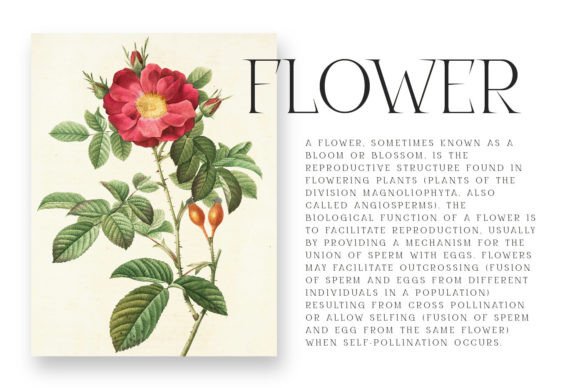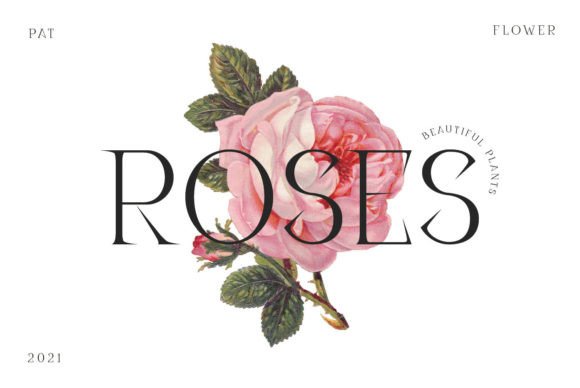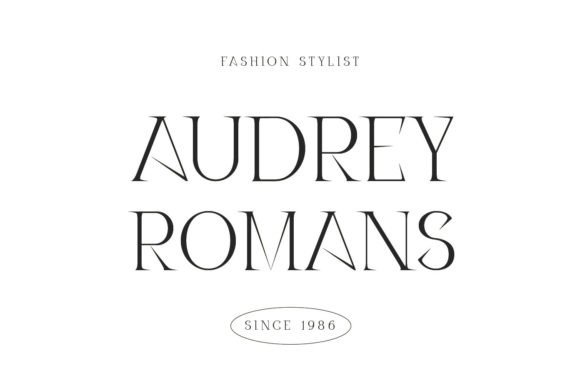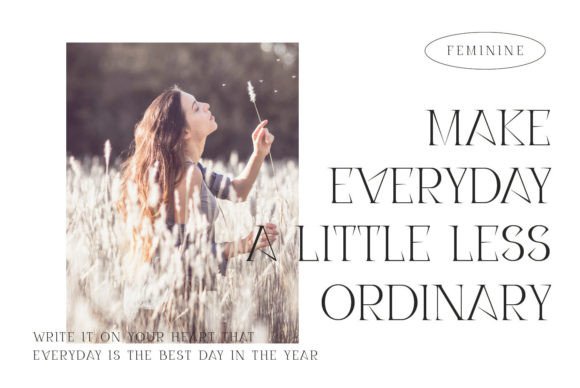
Disenativo: A Slim and Solemn Slab Serif Font
Disenativo is a slim and solemn slab serif font, capable of adding luxurious vibes to any design! Use this gorgeous typeface to enhance the beauty of your wedding invitations, banners, personal branding, or business cards.
Key Features of Disenativo
- Slim Design: Offers an elegant and refined look suitable for various applications.
- Slab Serif Structure: Features distinctive serifs that add character and sophistication.
- Solemn Appearance: Brings a sense of dignity and formality to designs.
- Luxurious Vibe: Adds an upscale feel to any project it’s used in.
Ideal Uses for Disenativo
Disenativo’s unique characteristics make it particularly well-suited for:
- Elegant wedding invitations
- Sophisticated banner designs
- Upscale personal branding
- Luxurious business cards
- High-end product packaging
- Formal event invitations
- Elegant website headers
When incorporating Disenativo into your designs, consider these tips:
- Use for headlines or short blocks of text to showcase its slim and solemn style.
- Experiment with different sizes to highlight the font’s luxurious features.
- Consider pairing with simpler sans-serif fonts for body text to create contrast.
- Utilize its elegant appearance to create designs that evoke sophistication and luxury.
Disenativo is an excellent choice for designers looking to add a slim and solemn slab serif font to their typographic toolkit. Its ability to bring luxurious vibes to various design projects makes it stand out in the world of typography. Whether you’re working on wedding invitations, creating banners, or developing personal branding materials, Disenativo offers the perfect blend of elegance and formality.
Furthermore, Disenativo’s unique design allows it to shine in various contexts where a touch of luxury is desired. From business cards to high-end product packaging, this font can elevate your projects with its distinctive style. Its slim yet readable appearance works particularly well in designs that aim to convey a sense of sophistication and exclusivity.
In conclusion, Disenativo is a font that truly captures the essence of elegance and solemnity in modern typography. Its versatility across different applications showcases its adaptability to various creative needs. For those looking to add a touch of luxurious charm to their work, Disenativo can enhance themed creations with its distinctive style. It’s the perfect choice for designers seeking to make a refined, stylish impact across a wide range of upscale creative projects.